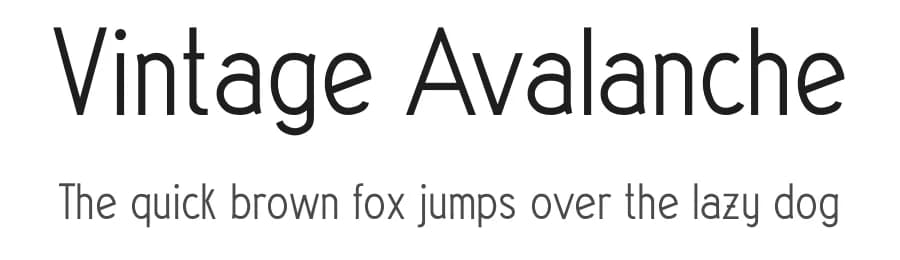
About Vintage Avalanche Font
"Vintage Avalanche" is a conspicuous, thin yet highly readable type which works well in all environments, as effective in both small sizes as in large titling signage.
"Vintage Avalanche" is a type somewhat inspired by a handmade sign that appears on the movie '007 On Her Majesty's Secret Service'.
Vintage Avalanche Font
by APlaπi